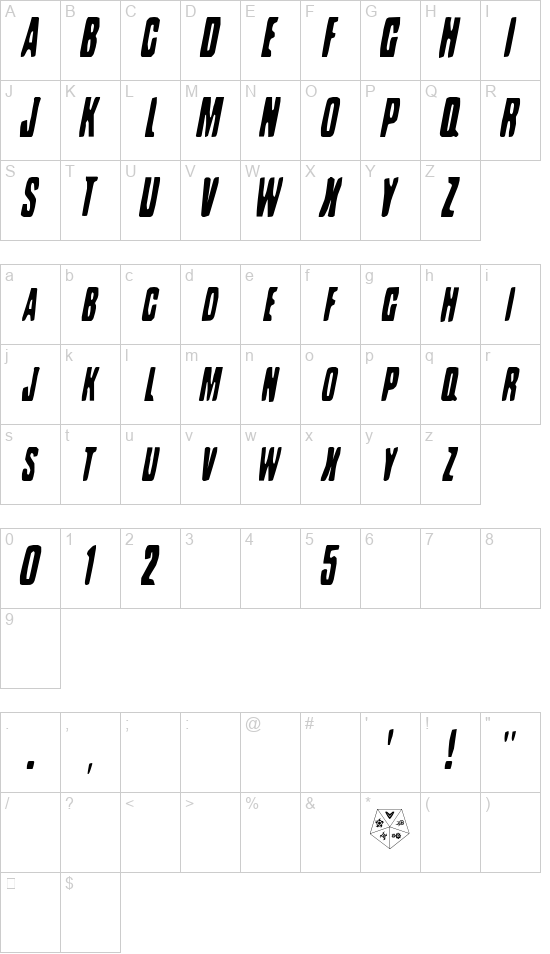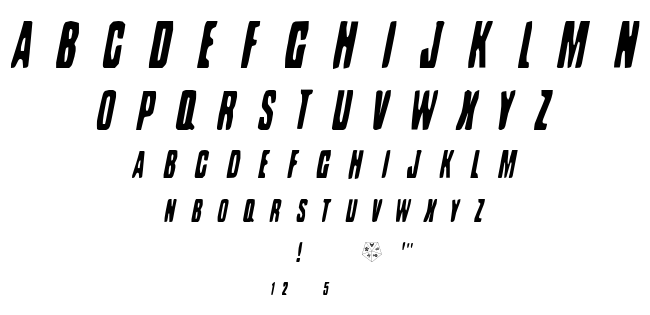
Latest FREE Fan-based font from the mouse of SpideRaY. based on the opening title sequence of the popular children’s TV series of the same name..
Asterix = BATTLE PENTAGON
Section Sign = SAGE the SENTIENT
Tilda = CARTOON NETWORK LOGO
En Dash = BATTLEFORCE 5 LOGO
Em Dash = BATTLEFORCE 5 FUSED LOGO